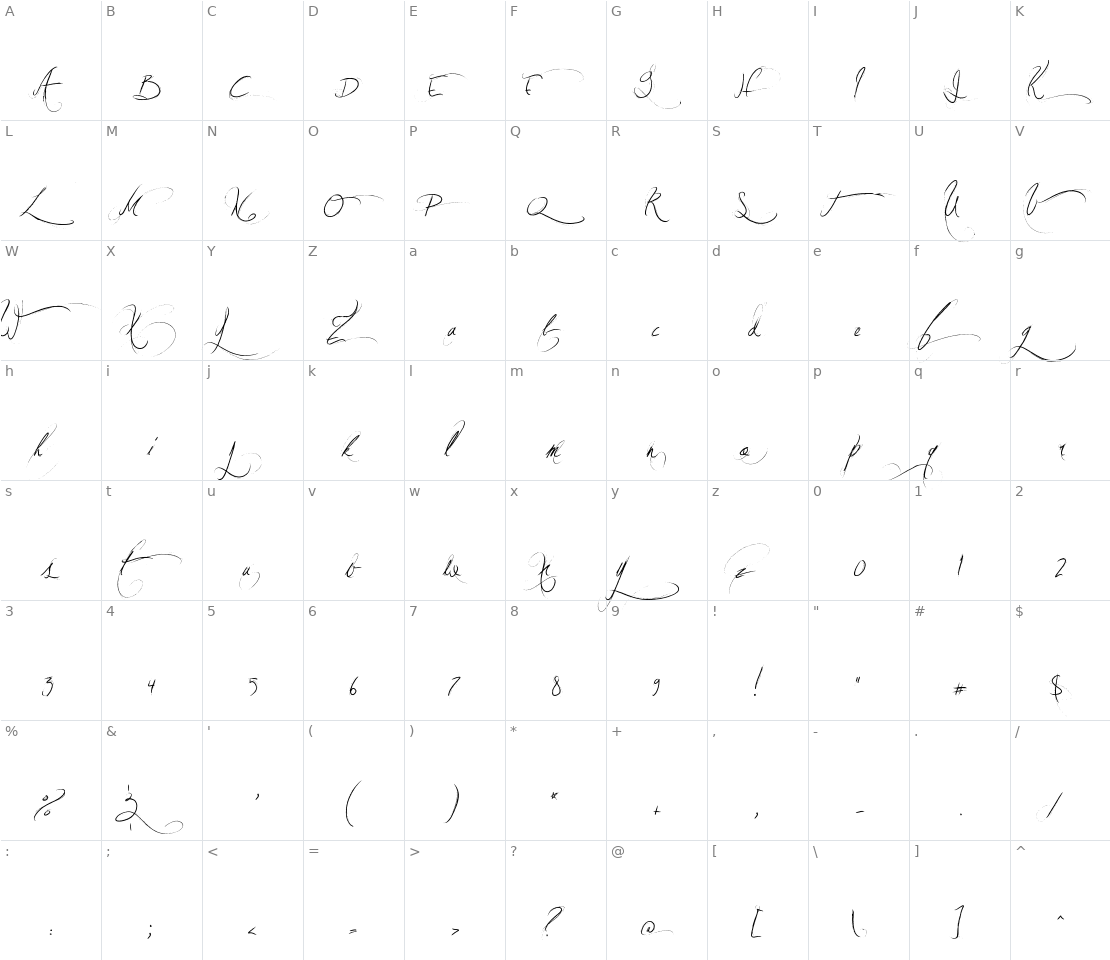
Jellyka Vampire Street
Jellyka Vampire Street is a thin, flourished handwriting font from Jellyka Nerevan that balances romantic calligraphic swashes with a slightly gothic sensibility. The ornate letterforms feel personal and intimate, with looping strokes and decorative details that give it more drama than a typical script. Best for invitations, titles, and editorial accents where you want something that reads as both elegant and a little dark.